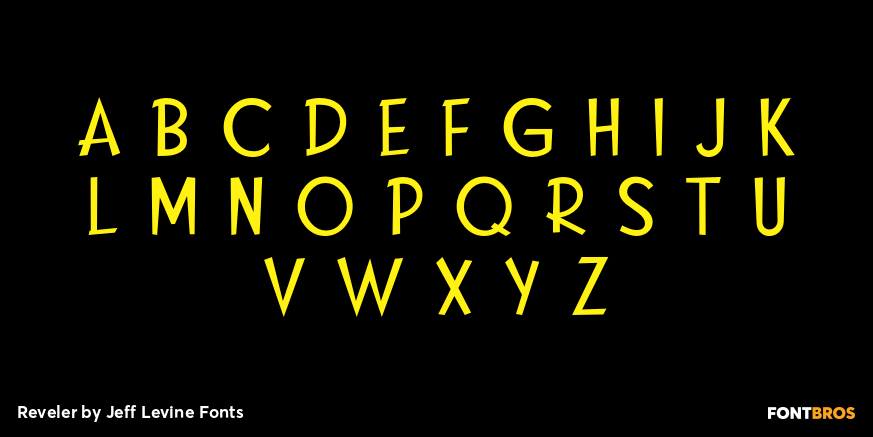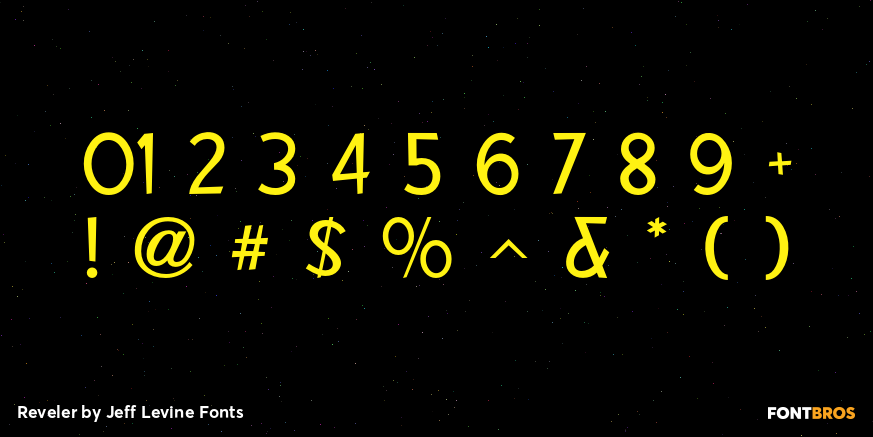
Reveler
The sheet music for 'Good Night Angel' from the 1937 motion picture 'Radio City Revels', had the movie's title hand lettered in a free form Art Deco sans serif design.
This has been recreated digitally as Reveler JNL, which is available in both regular and oblique versions.